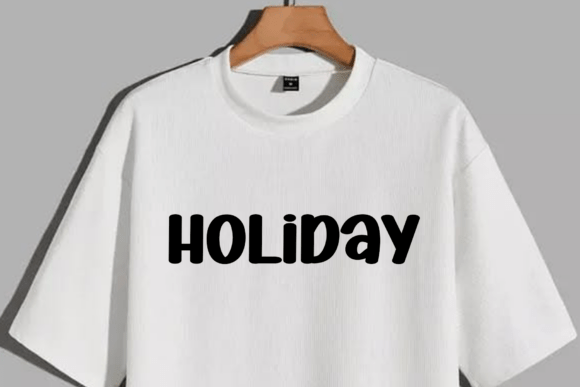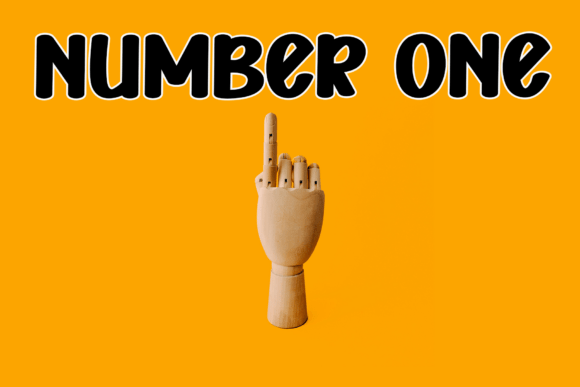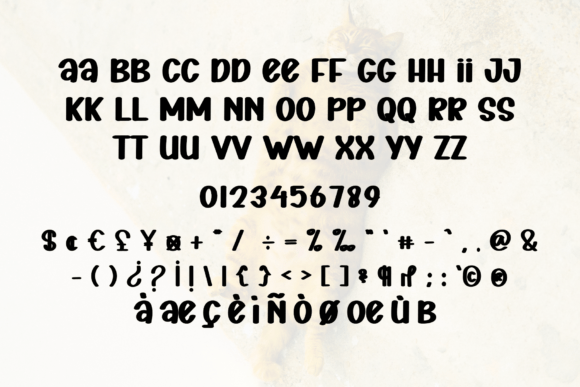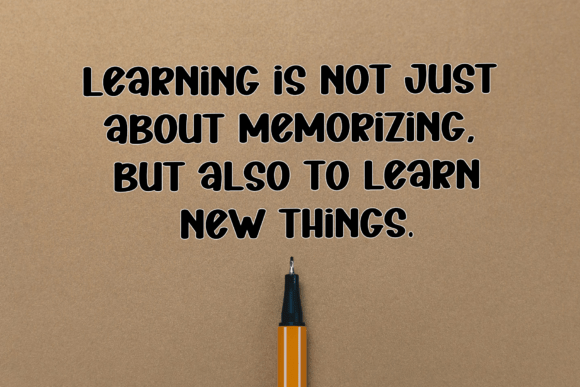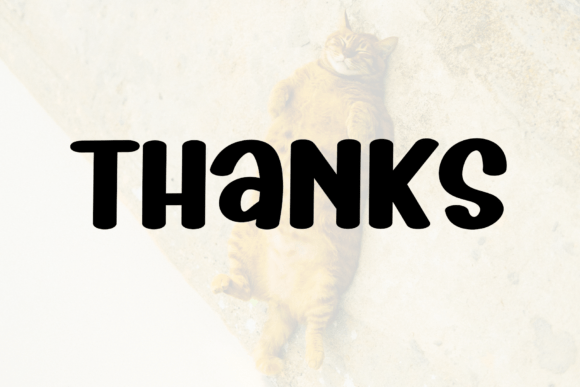
The Perfect Font for a Whimsical Touch
Do you ever find yourself in the midst of a creative project, pouring your heart and soul into every detail, only to realize that something’s missing? That’s when the magic of typography comes in – the perfect font can elevate your design and transport your audience to a world of wonder. For designers seeking to infuse their work with a lighthearted and endearing aesthetic, Chubby Font is the ultimate solution.
This sweet and friendly handwritten font wraps your designs in a warm, fuzzy hug, spreading a delightful playfulness across every page. With charming letterforms and an innocent vibe, Chubby Font is the perfect companion for any creative project. Whether you’re working on a children’s book, a greeting card, or a social media campaign, this font adds a touch of Disney magic to your expressions.
Key Features of Chubby Font
- Unique Characteristics: Chubby Font features a distinctive, rounded shape with a high level of detail, making it ideal for use in logos, branding, and other applications where a friendly, approachable feel is desired.
Designer Review: Chubby Font
As a designer, I’ve had the chance to work with various fonts, and Chubby Font is one that caught my attention. At first glance, I was drawn to its playful and approachable personality. ✨
- Chubby Font has a unique charm that’s perfect for creative projects, such as children’s books, invitations, or social media graphics.
- The font’s bold lines and rounded edges make it easy to read, even at smaller font sizes.
- Chubby Font is available in a range of weights, allowing for flexibility in design applications.
However, as I dug deeper, I found some limitations that might impact its usability. ⚠️
- Chubby Font may not be the best choice for formal or professional projects, as its playful nature may come across as unprofessional.
- The font’s bold lines can make it difficult to pair with more delicate or intricate designs.
- Some characters, such as ‘g’ and ‘q’, may require adjustments to maintain proper spacing.
Overall, I’d say Chubby Font is a great addition to any designer’s toolkit, but it’s essential to consider its limitations and use it wisely. With the right project, it can add a delightful touch and make your design stand out.
For optimal results, use Chubby Font in headings and titles to add a playful touch to your designs. It’s also great for creating eye-catching social media graphics and promotional materials. Be mindful of font size and style to avoid overwhelming the viewer.
Experiment with different font combinations to create a unique and engaging visual identity.